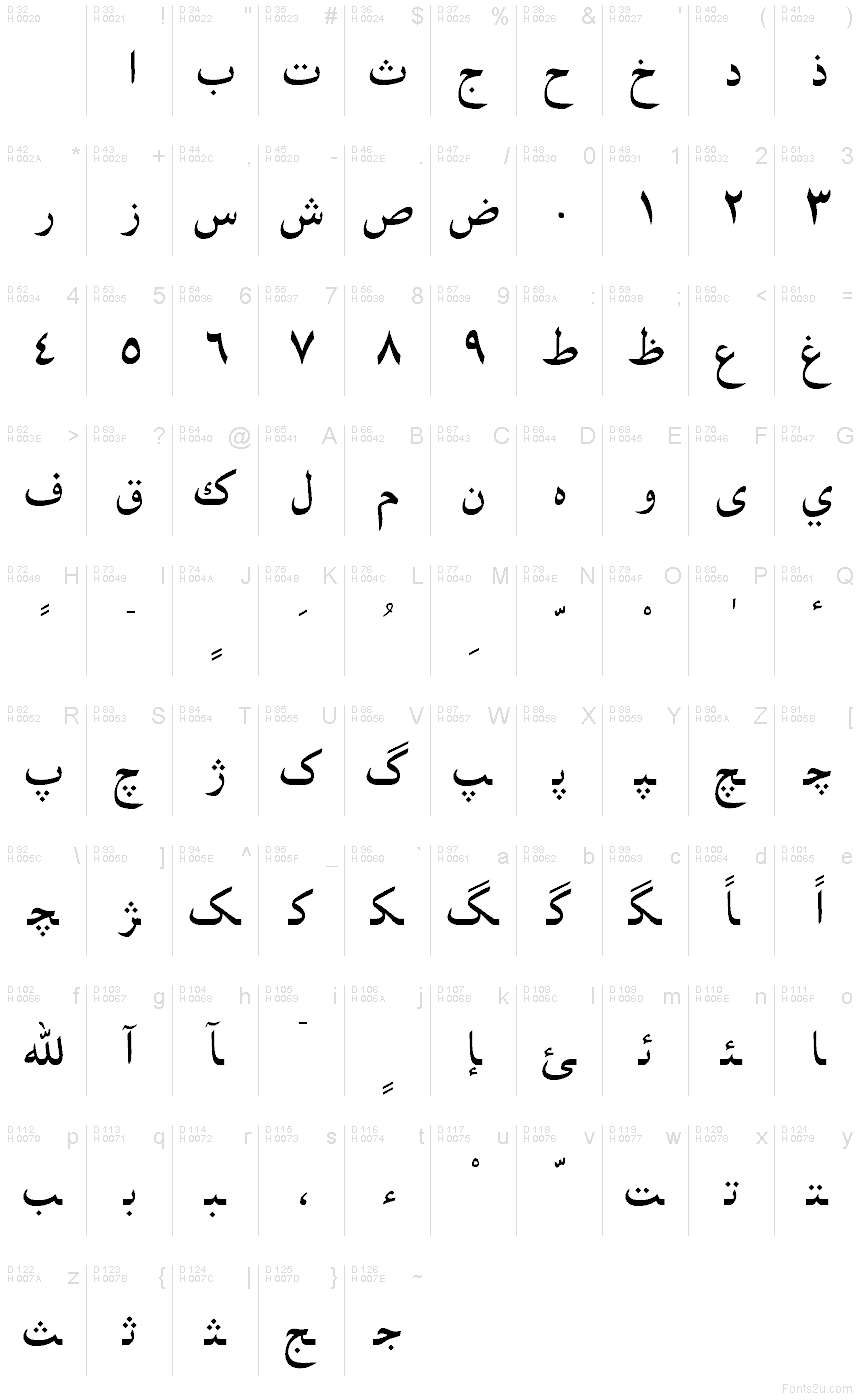
TLPashtoA font is an Arabic font designed by Payne Loving Trust. This free calligraphic font radiuses beautifully fluid movement and cultural significance through the patterns and shapes of each letter. It presents ornamental details, backward curls, and lowered crossbar letters that will pave your way in creating traditional templates effortlessly.
Used mostly in Pashto writing, the font style can be utilized for Urdu language designs as well. Bring innovation to websites, packaging ideas, magazine covers, or even PowerPoint projects with this artistic typeface. Give blog posts, social media banners a traditional touch as well with TLPashtoA.